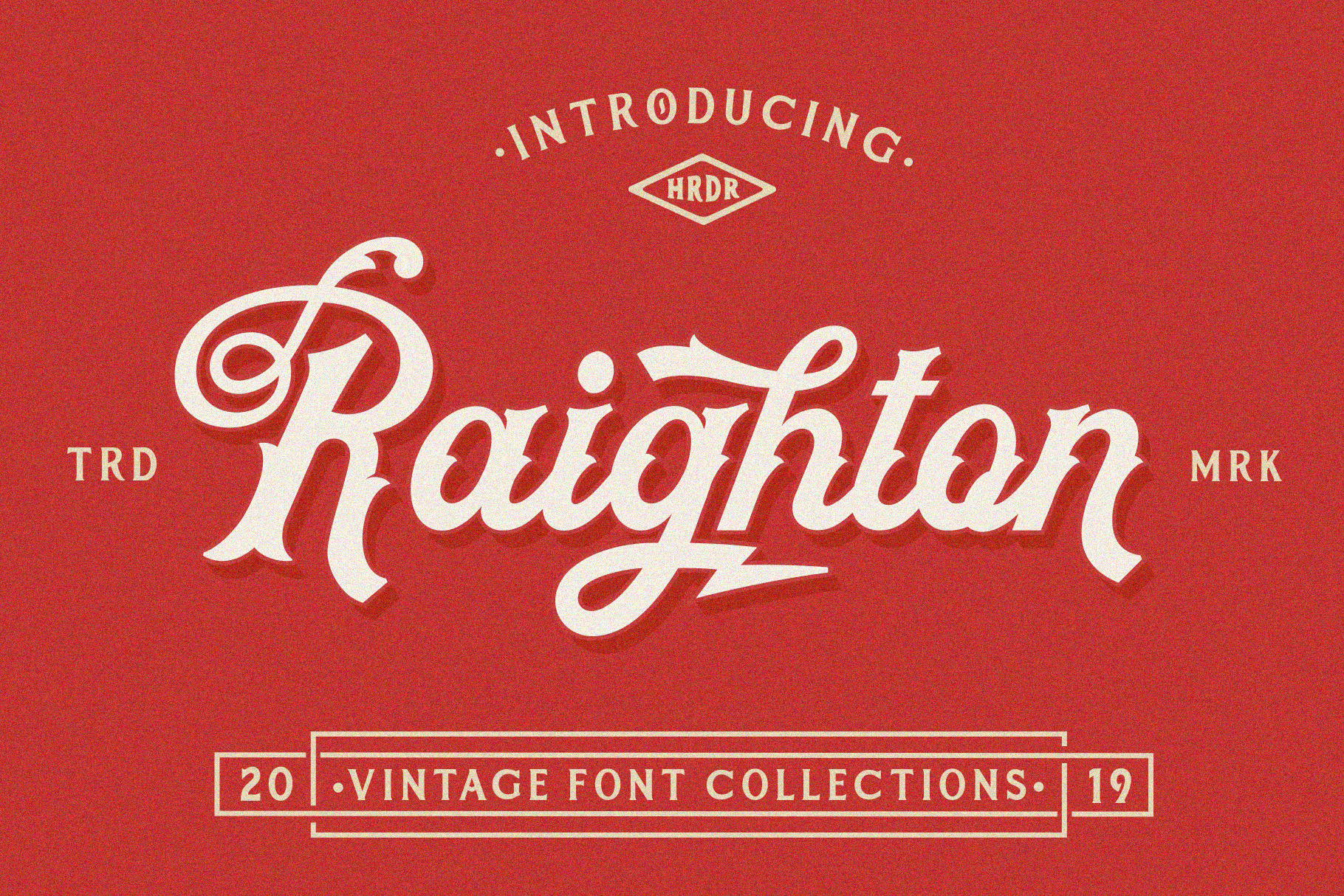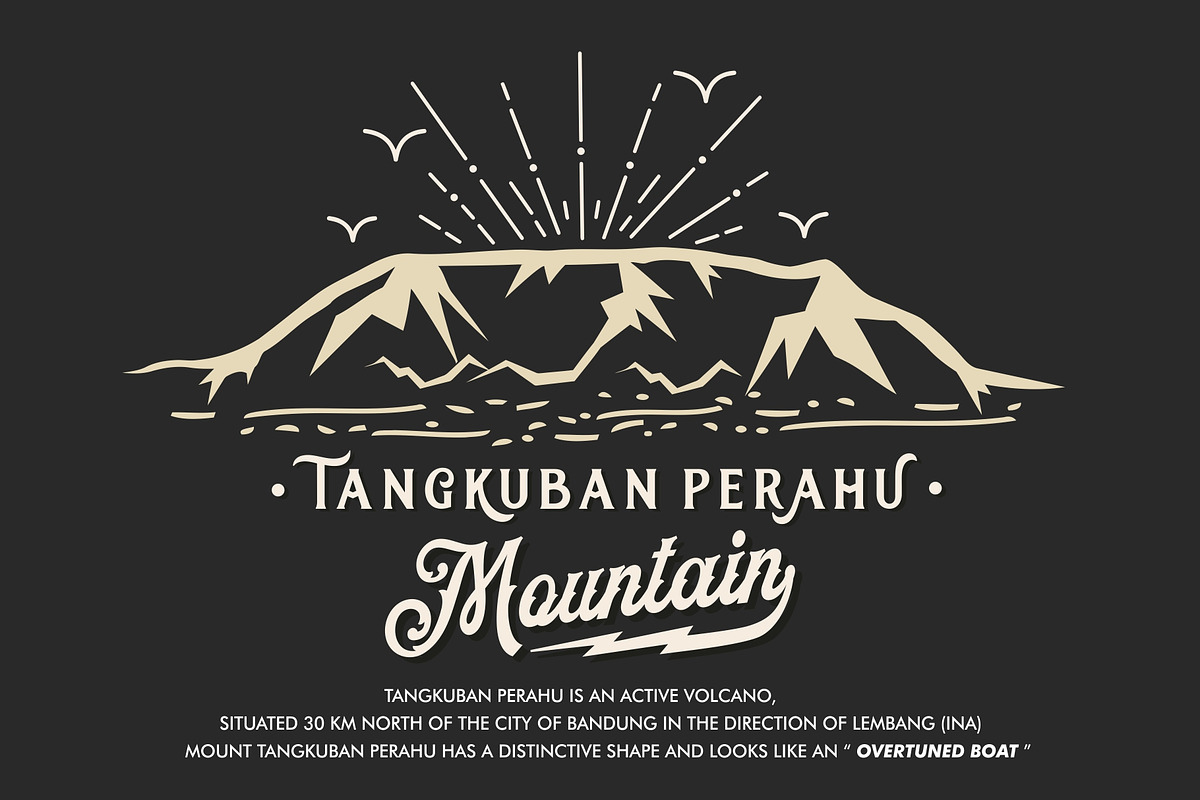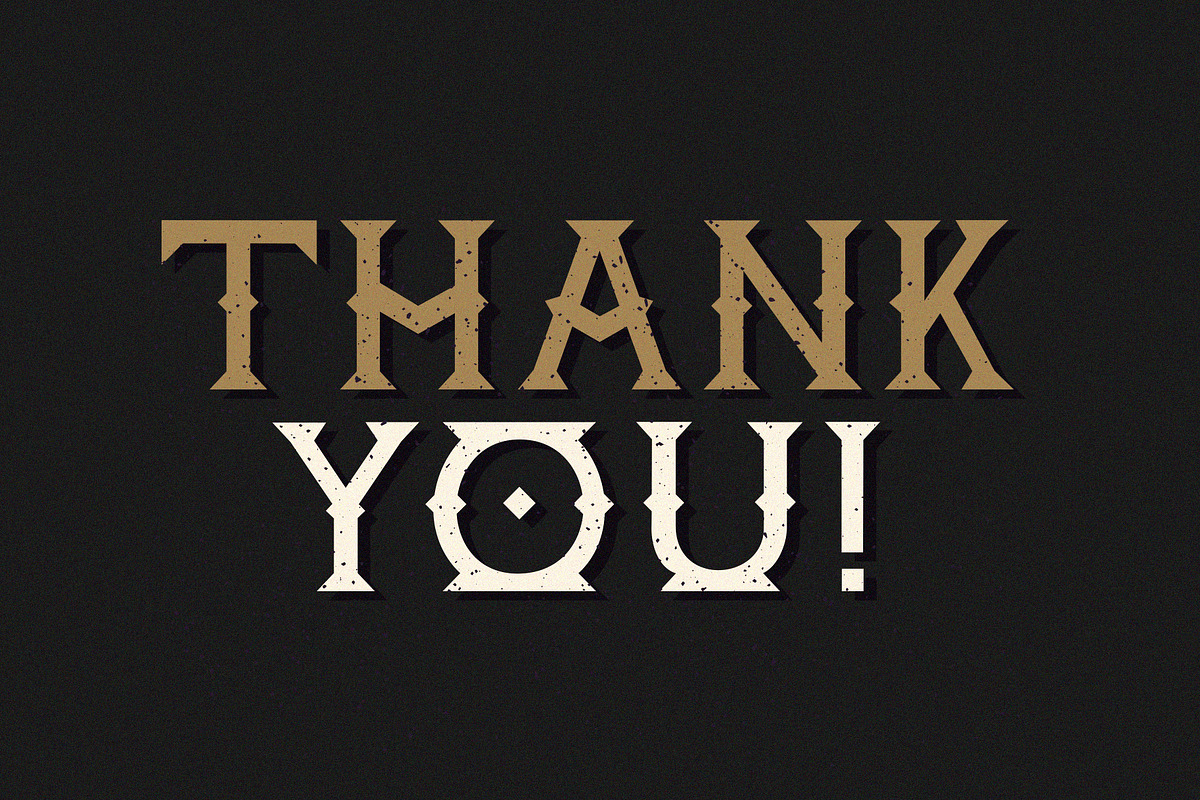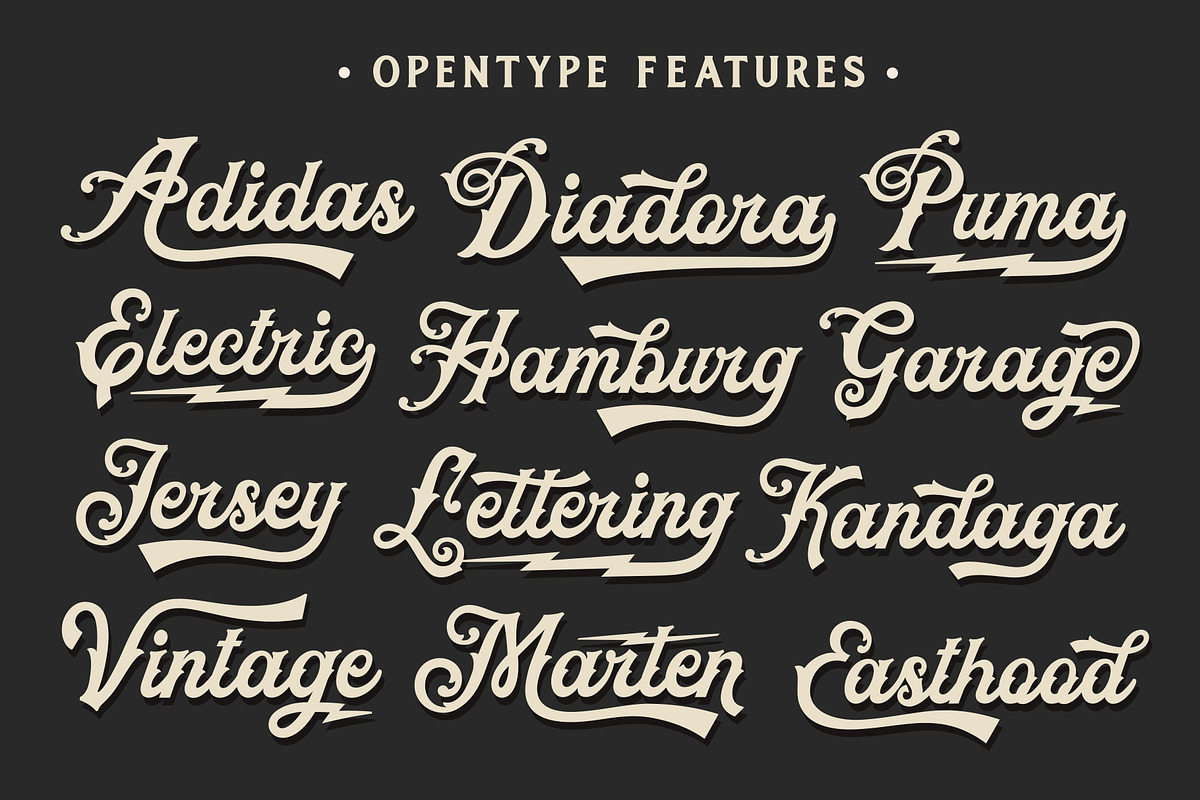
Raighton Font Collections!
Proudly presents our latest product Raightone Font Collections!!
Raightone font of these consist with four different style with vintage feel, perfect for product logo, branding projects, headlines, posters, packaging, clothing brand logo,Vintage design and much more.
A wide range of standart ligatures, alternate characters, as well as four different weights allow unique design options!
The Features includes: Stylistic Alternates, Swashes, Ligatures, and Stylistic Set.